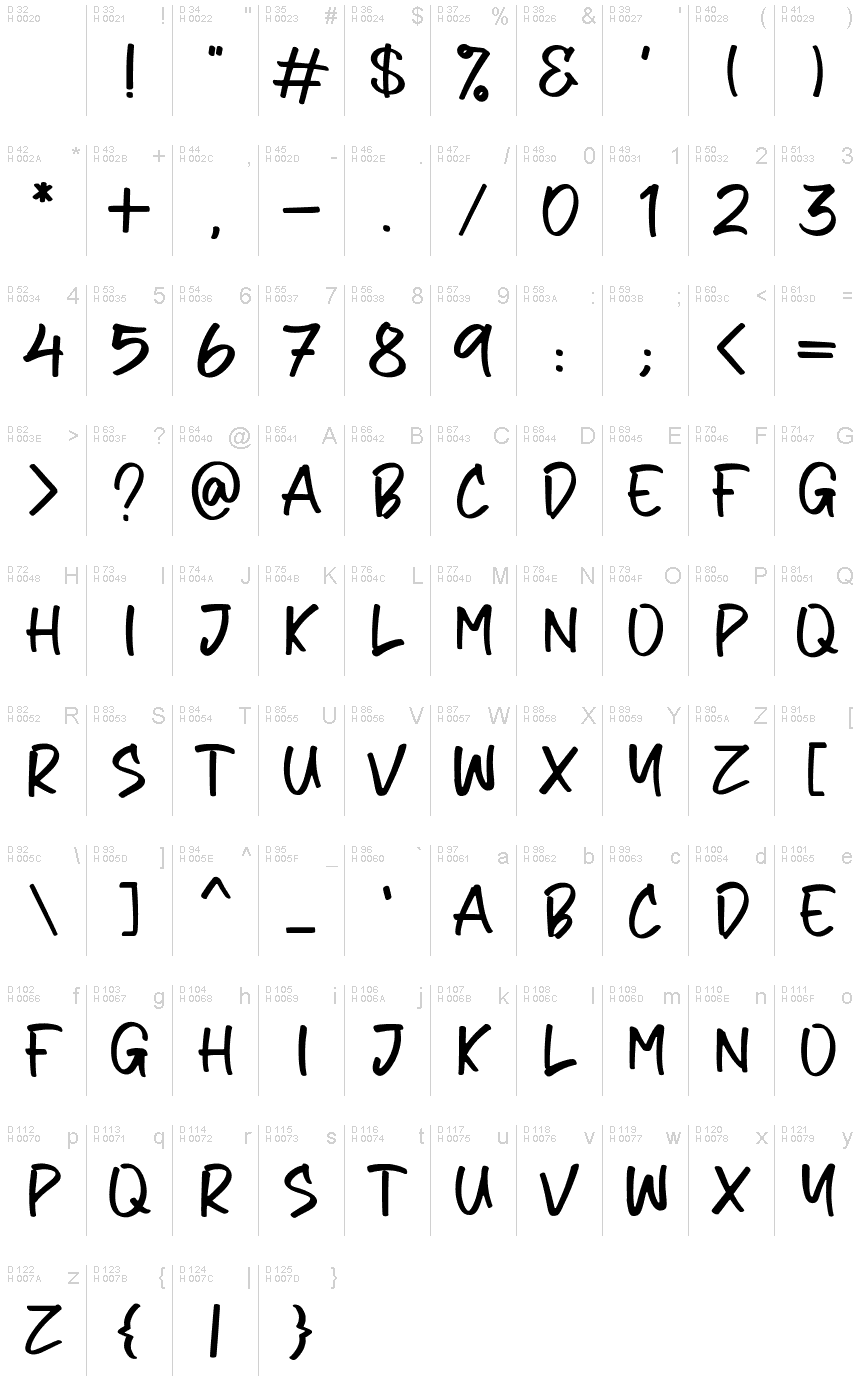
Bailey Sidney
Bailey Sidney is a light, handwritten marker font designed by Qwrtype.Foundry with a unique, playful style. Perfect for adding personality to your projects, it's ideal for everything from invitation cards to posters and t-shirt designs. Its friendly nature and open curves make it an excellent choice for craft projects, social media banners and more. Let Bailey Sidney bring some fun to your design work!